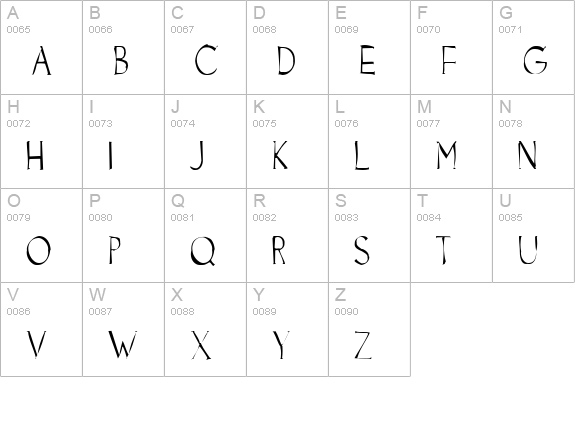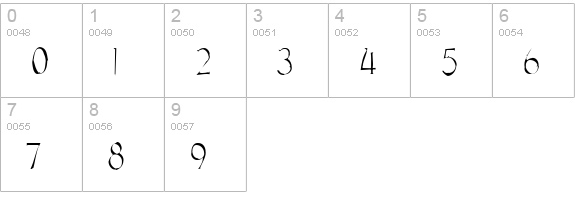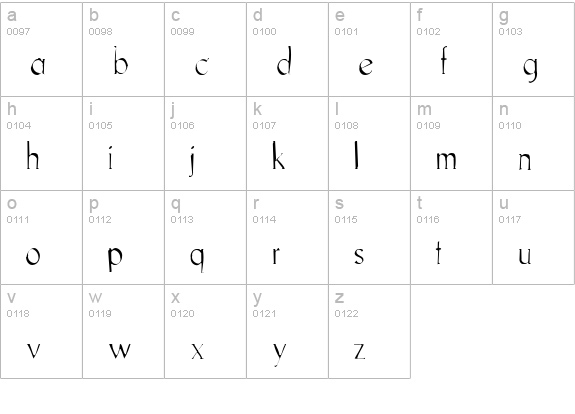
Goodfish Gaunt Font Details
Goodfish Gaunt is a modern and sleek font that exudes sophistication and elegance. With its slim and stylish letterforms, this typeface is perfect for adding a touch of sophistication to any design project. The sharp angles and clean lines of Goodfish Gaunt give it a contemporary feel, making it ideal for branding, editorial design, and more. What sets Goodfish Gaunt apart is not only its impeccable design but also the fact that it is available for free download at FontsMarket.com. This means that you can easily access this stunning font and use it in your projects without any cost. Whether you're a designer looking to elevate your work or a business owner seeking a fresh look for your brand, Goodfish Gaunt is a versatile and high-quality font that will help you stand out from the crowd. Download Goodfish Gaunt today and add a touch of sophistication to your designs.